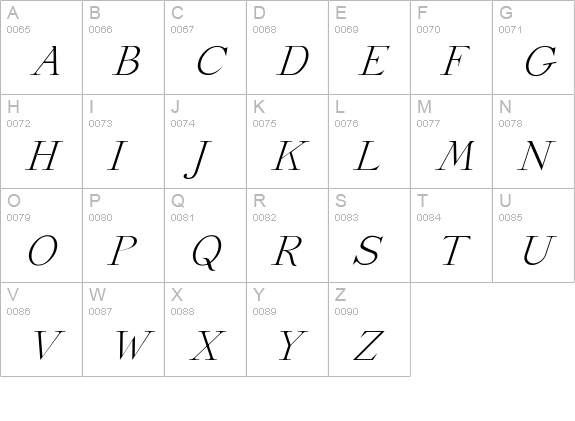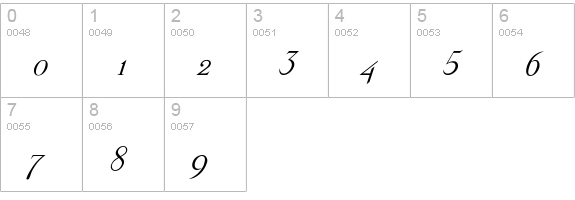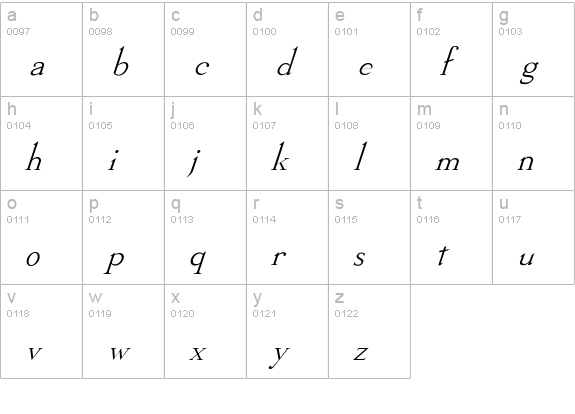
Stickee-Italic is a distinctive, italic variant in the Stickee typeface family \xE2\x80\x94 well suited to design and typography projects.
Stickee-Italic is a beautiful and elegant font that exudes sophistication and style. With its sleek, modern design and unique italicized form, this typeface is perfect for adding a touch of class to any project. The flowing curves and graceful lines of Stickee-Italic make it ideal for use in branding, invitations, signage, and more. What's even better is that Stickee-Italic is available for free download at FontsMarket.com. This means you can easily access this stunning font and use it in your designs without any cost. Don't miss out on the opportunity to enhance your projects with the timeless charm of Stickee-Italic. Download it today and elevate your designs to the next level.